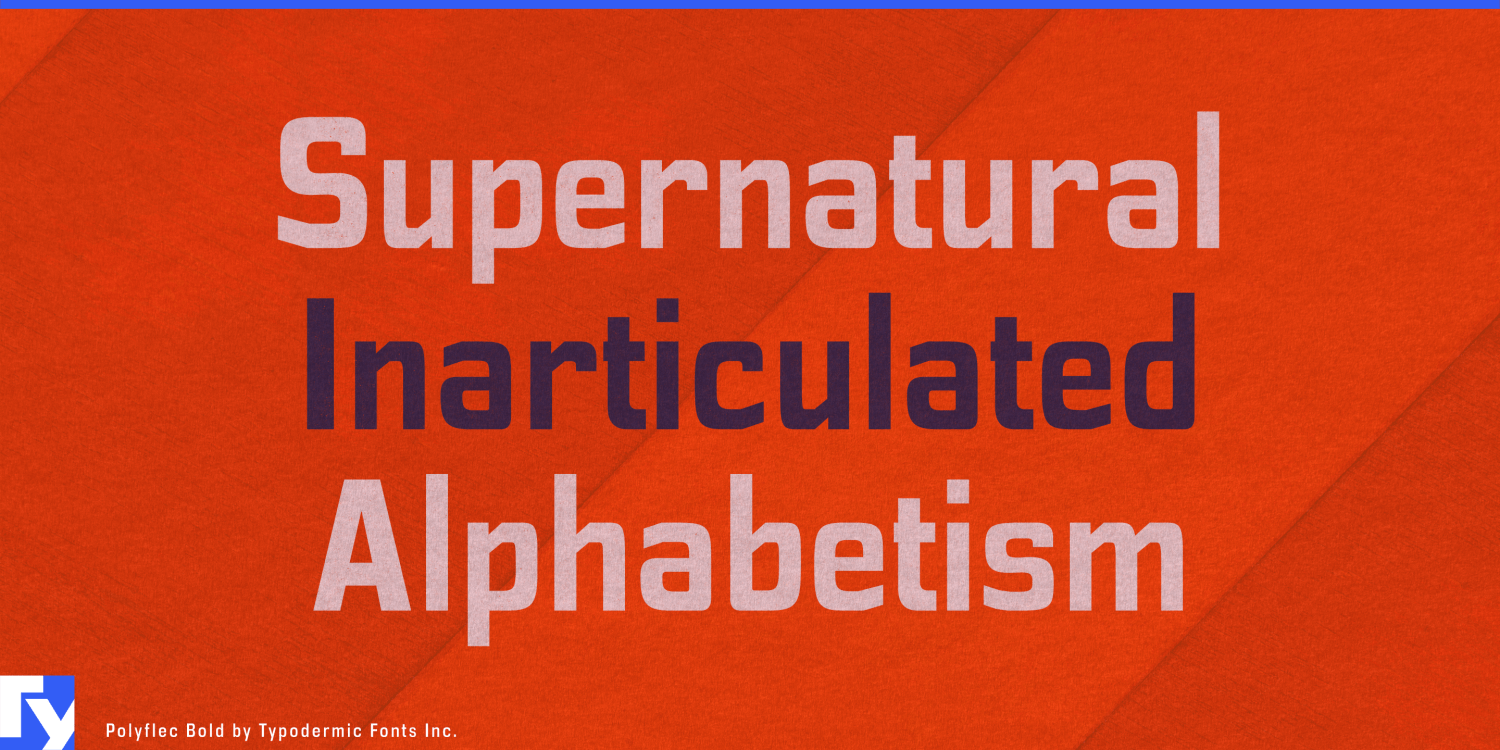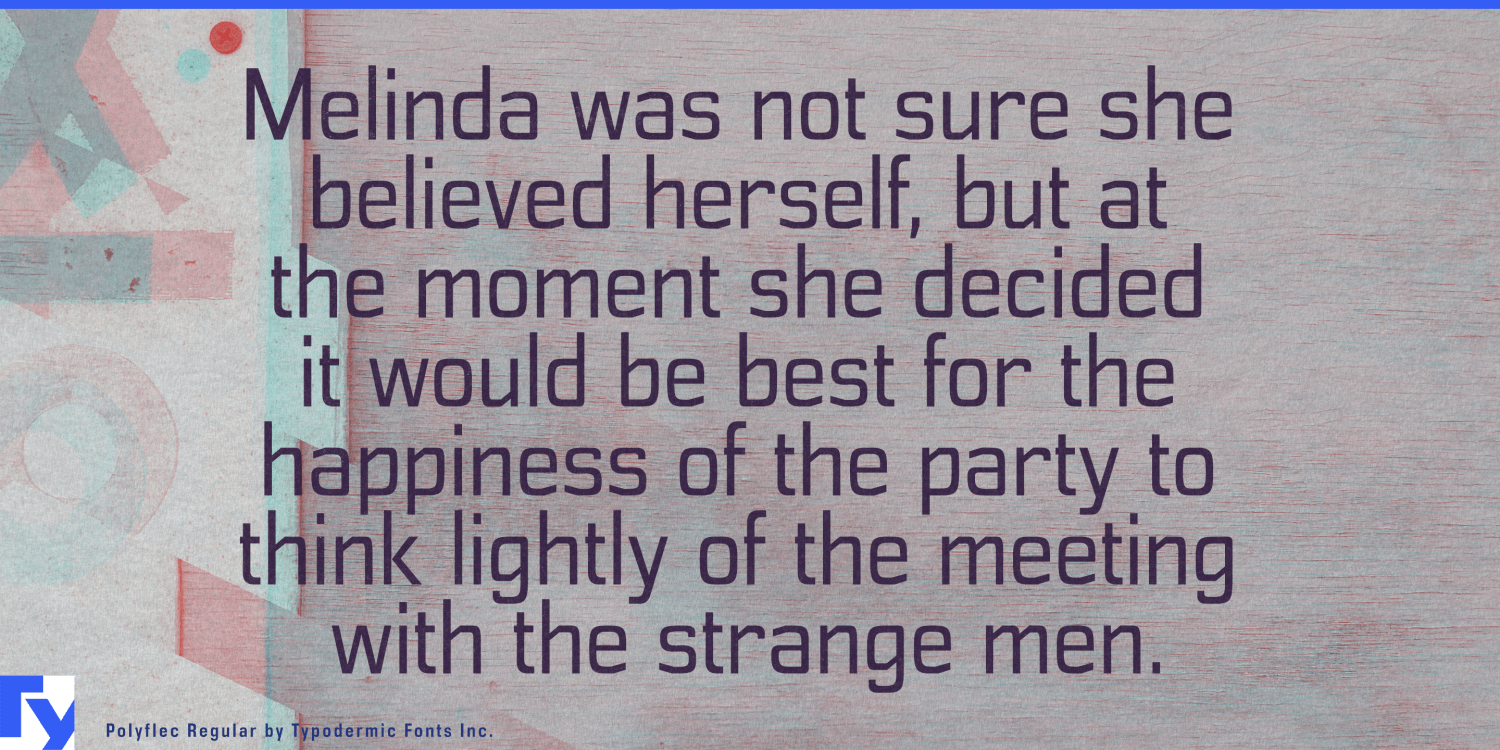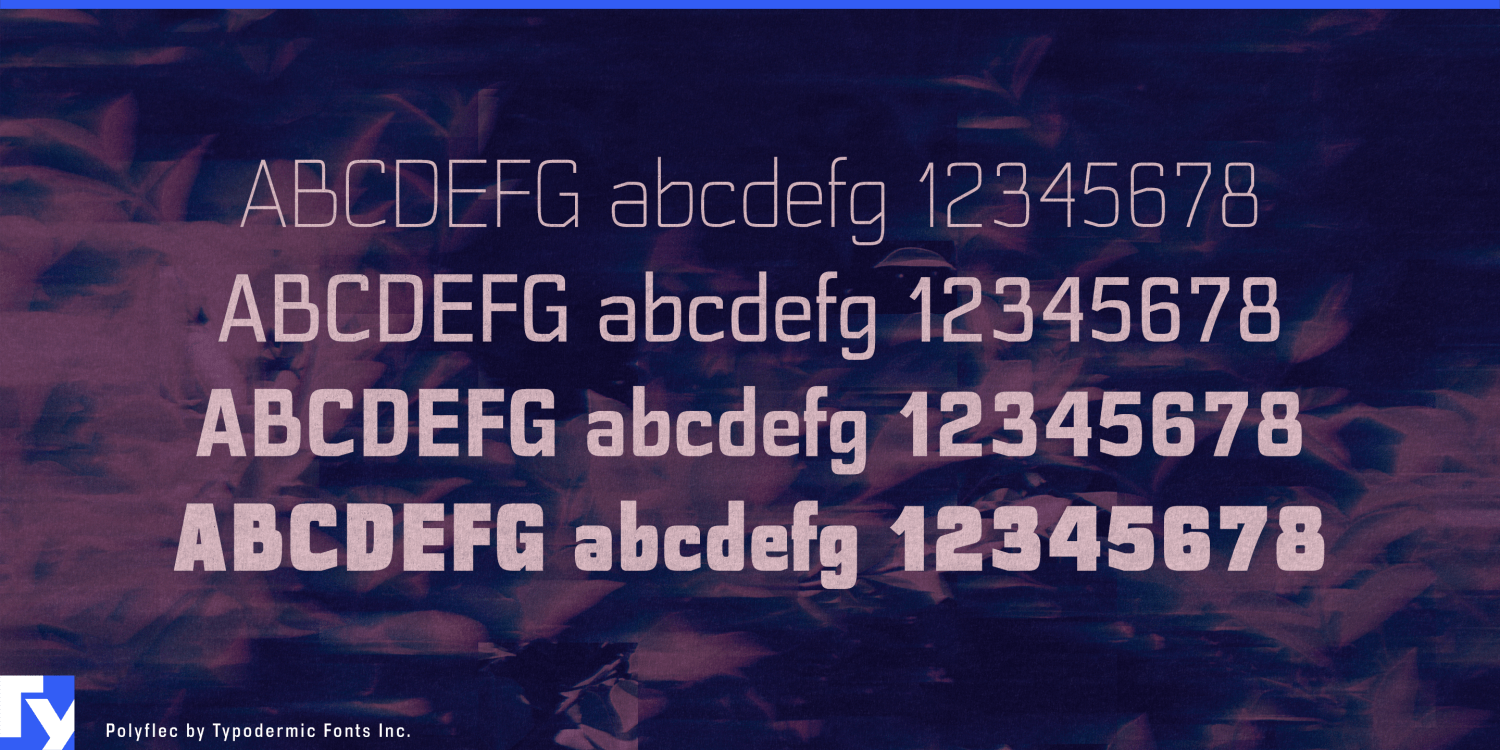
About Polyflec
Introducing Polyflec: the typographic embodiment of scientific precision and innovation. This is a catalyst for visual communication, as potent as any reagent in a chemist’s arsenal. Polyflec’s square letterforms and intricate angles are the…